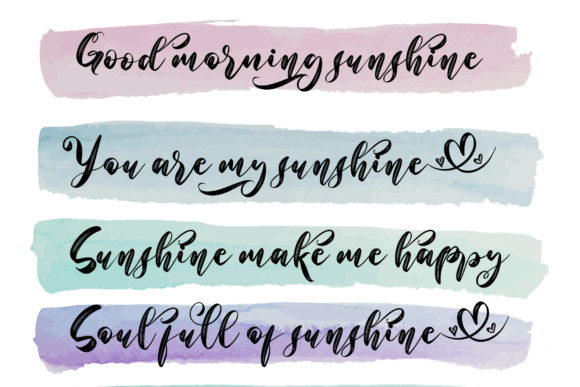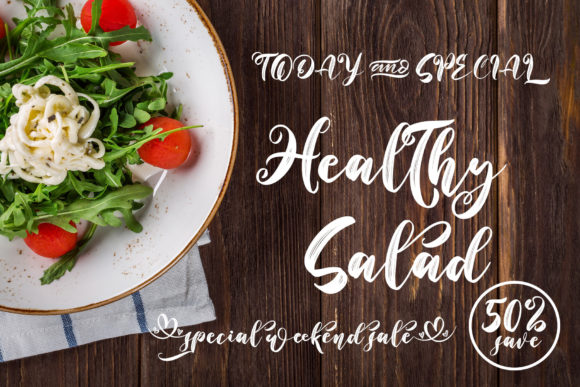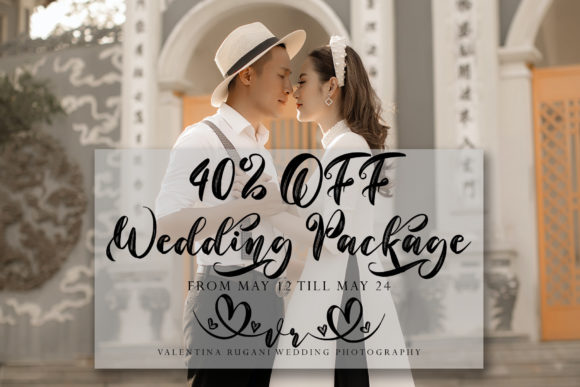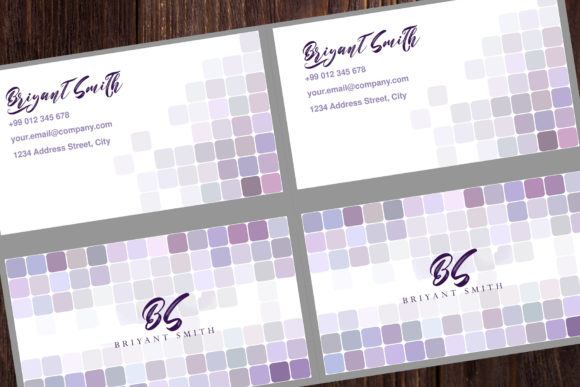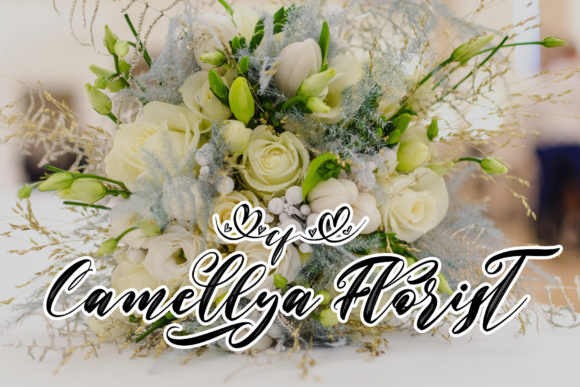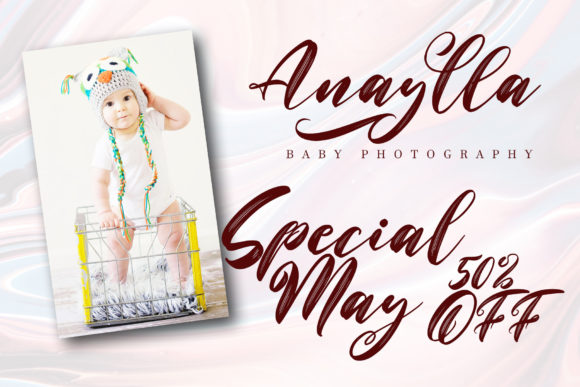
Baby Sunshine Font: The Perfect Addition to Your Design Arsenal
Are you a designer or crafter looking for a font that can add a touch of warmth and personality to your projects? Look no further than the Baby Sunshine font! This sweet, all-round, and brushed handwritten font is sure to turn each of your project ideas into real works of art. In this article, we’ll dive into the features and benefits of the Baby Sunshine font, and explore how it can elevate your designs to the next level.
A Warm and Romantic Font
Baby Sunshine is a font that exudes warmth and romance. Its brushed handwritten style gives it a personal and intimate feel, making it perfect for projects that require a touch of whimsy and charm. Whether you’re designing a wedding invitation, a baby shower card, or a social media graphic, Baby Sunshine is sure to add a dash of personality to your work.
One of the standout features of Baby Sunshine is its versatility. This all-round font can be used for a wide range of projects, from digital designs to print materials. Its warm and jolly tone makes it perfect for projects that require a friendly and approachable feel, such as:
- Baby shower cards and decorations
- Branding and packaging materials
Baby Sunshine is PUA (Private Use Area) encoded, which means that you can access all of the glyphs and swashes with ease. PUA encoding allows designers to access a wide range of special characters and glyphs that are not available in standard fonts. This means that you can easily add flourishes and swashes to your text, giving your designs an extra touch of personality and style.
With Baby Sunshine, you can access a wide range of glyphs and swashes, including:
- Alternates and ligatures
- Swashes and flourishes
- Accents and diacritical marks
Why Choose Baby Sunshine?
So why choose Baby Sunshine over other fonts? Here are just a few reasons why this font stands out:
- Unique and distinctive style: Baby Sunshine has a one-of-a-kind style that’s sure to set your designs apart from the crowd.
- Easy to use: With PUA encoding, you can easily access all of the glyphs and swashes you need to create stunning designs.
- Versatile: Baby Sunshine can be used for a wide range of projects, from digital designs to print materials.
- Warm and inviting: This font exudes warmth and personality, making it perfect for projects that require a friendly and approachable feel.
Tips for Using Baby Sunshine
Here are a few tips for using Baby Sunshine in your designs:
- Pair with contrasting fonts: Baby Sunshine pairs well with clean and simple fonts, such as sans-serif fonts like Arial or Helvetica.
- Experiment with swashes and glyphs: Don’t be afraid to get creative with the glyphs and swashes available in Baby Sunshine. They can add a touch of personality and whimsy to your designs.
- Use for headlines and titles: Baby Sunshine is perfect for headlines and titles, where you want to make a bold and eye-catching statement.
| Author | Nox Studio |
In conclusion, Baby Sunshine is a sweet and charming font that’s perfect for designers and crafters looking to add a touch of warmth and personality to their projects. With its PUA encoding and versatile style, this font is sure to become a staple in your design arsenal. Whether you’re designing a wedding invitation, a baby shower card, or a social media graphic, Baby Sunshine is the perfect choice.